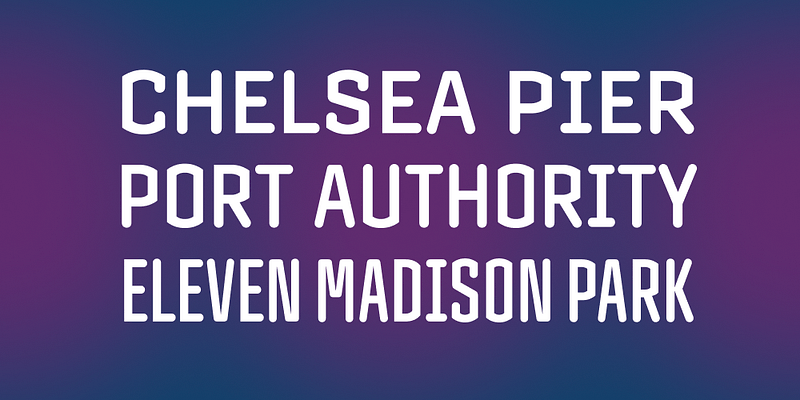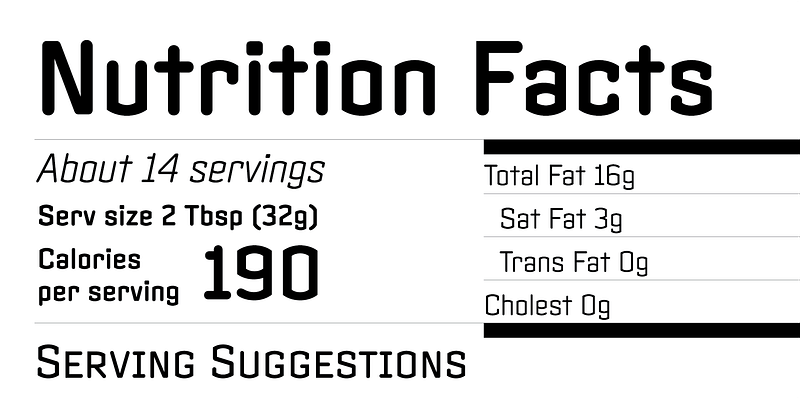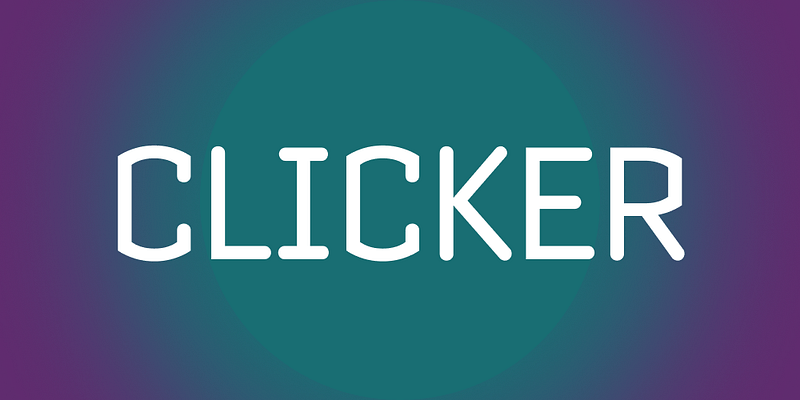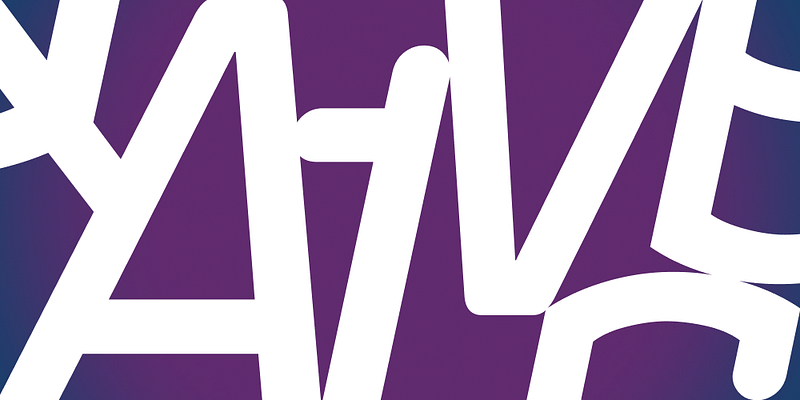
A popular television guide commissioned Clicker from Greg Thompson and Font Bureau, a design with roots in machine-readable type and the abbreviated characters of video menus. Drawing forms to look right – rather than to measure correctly –Thompson created with endless subtlety this deceptively simple series of forty-five designs. Clicker offers a contemporary appearance, performing as text and display; FB 1992–2005
Since the late 1980s, Greg Thompson has developed popular typefaces that are now part of our visual landscape and branding vocabulary for large, forward-thinking companies and agencies alike. With a sense of historical reference combined with modern visual considerations, the fonts from Greg Thompson Type speak to more than one specific period in time. Each family is a chameleon capable of enhancing a designer’s limitless ideas, from movie posters to food packaging, book publishing, and beyond.